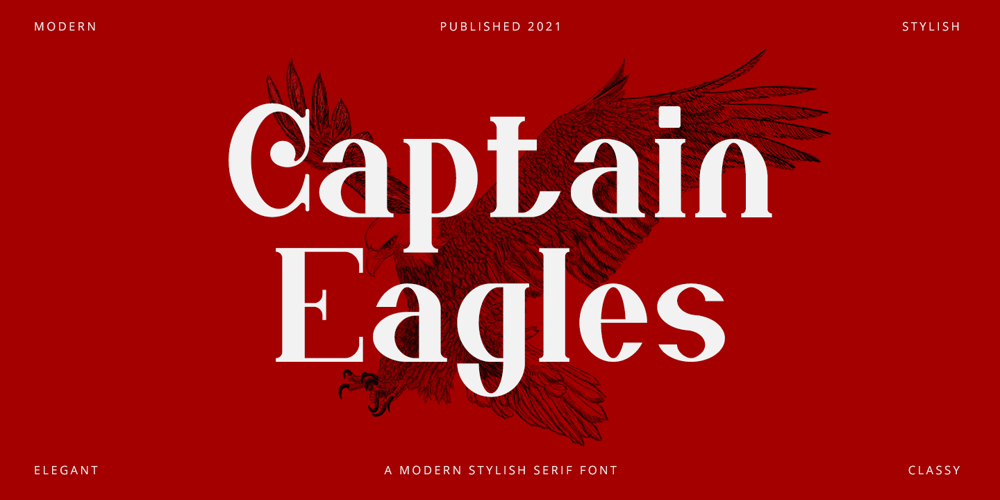
Captain Eagles Font Family was designed by Hayinah and published by Rockboys Studio. Captain Eagles contains 1 styles and family package options. Captain Eagles is a modern serif font that blends contemporary style with a touch of classic elegance. It features sharp, distinctive serifs and clean, angular lines that give it a bold, sophisticated presence. The font’s well-defined strokes and refined details make it stand out in both headlines and body text, providing a striking balance between modern flair and timeless design. With its stylish character and strong visual impact, Captain Eagles is ideal for high-end branding, editorial design, and any project where a touch of modern sophistication is desired. Its versatility ensures it complements a wide range of design aesthetics while maintaining a commanding and elegant look.